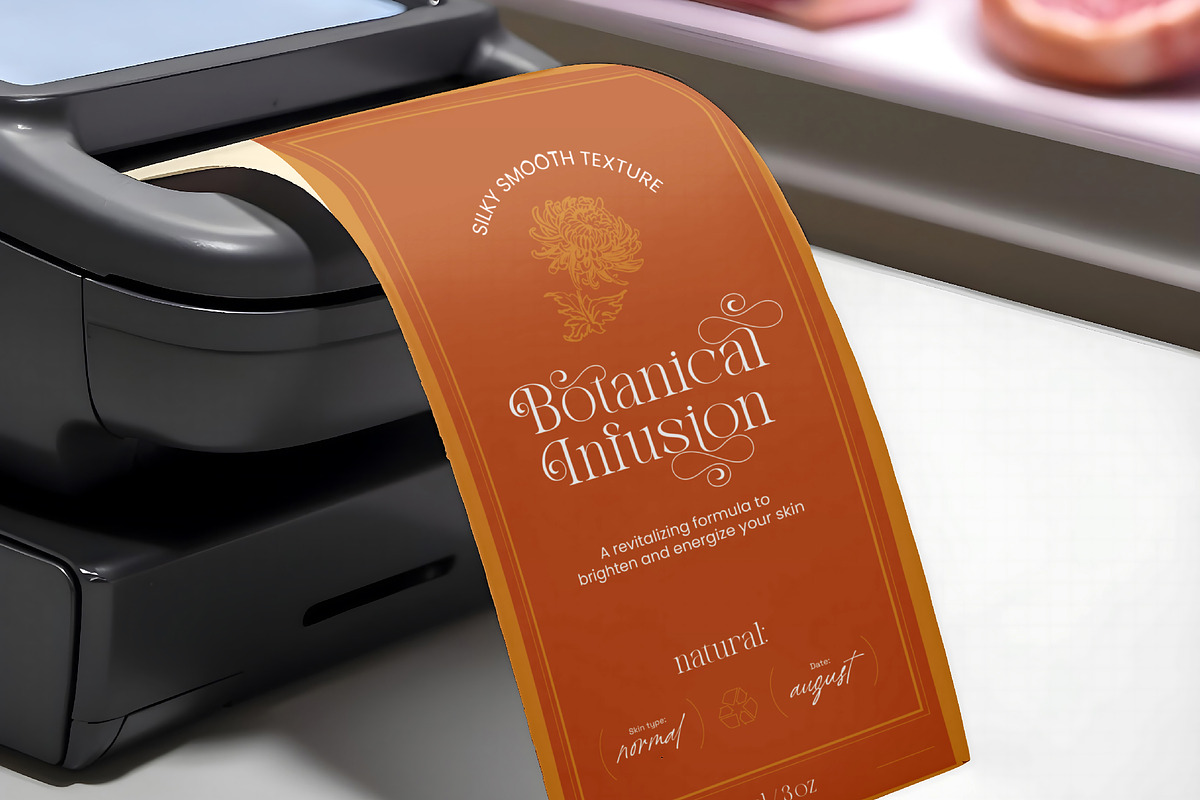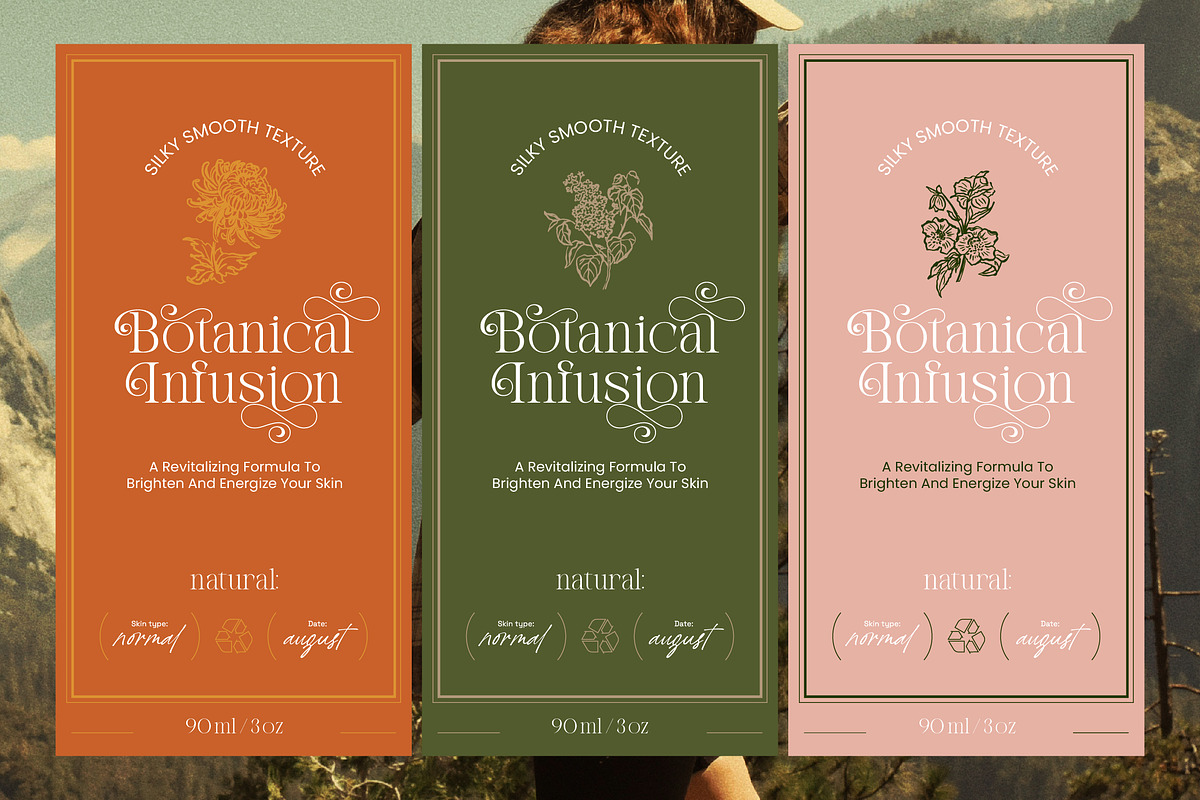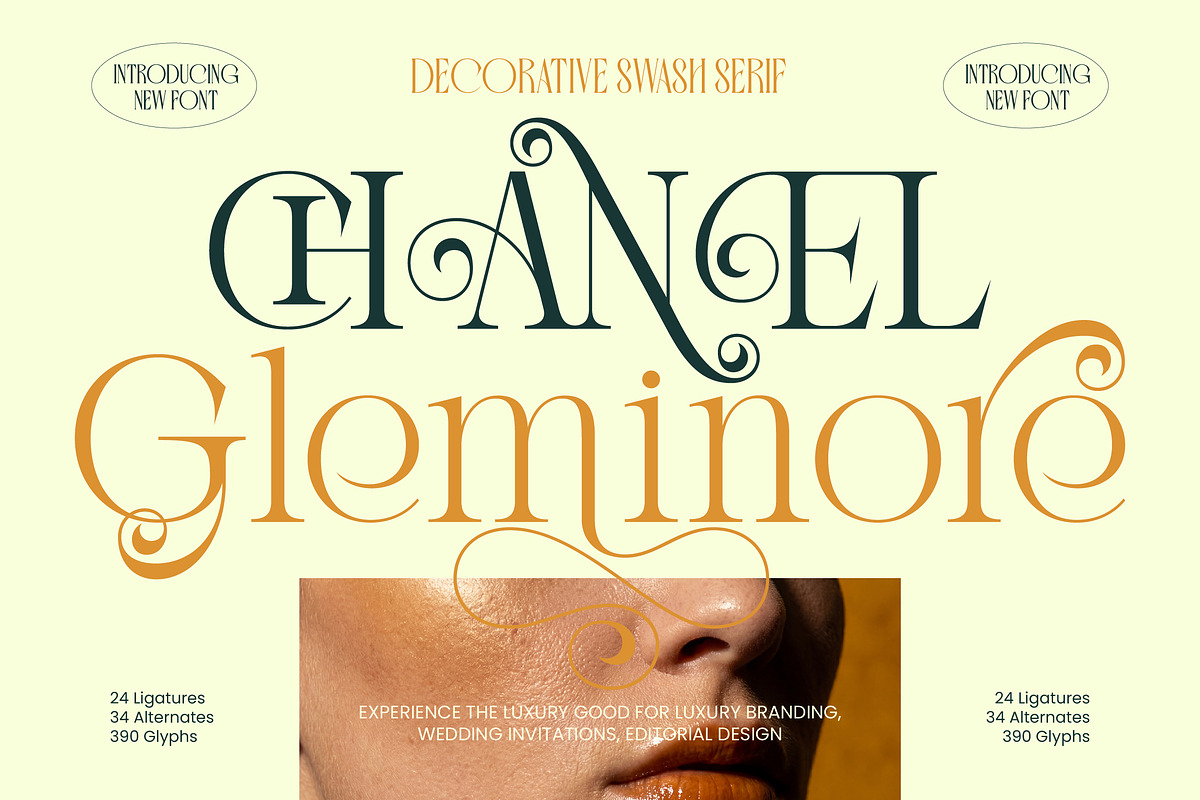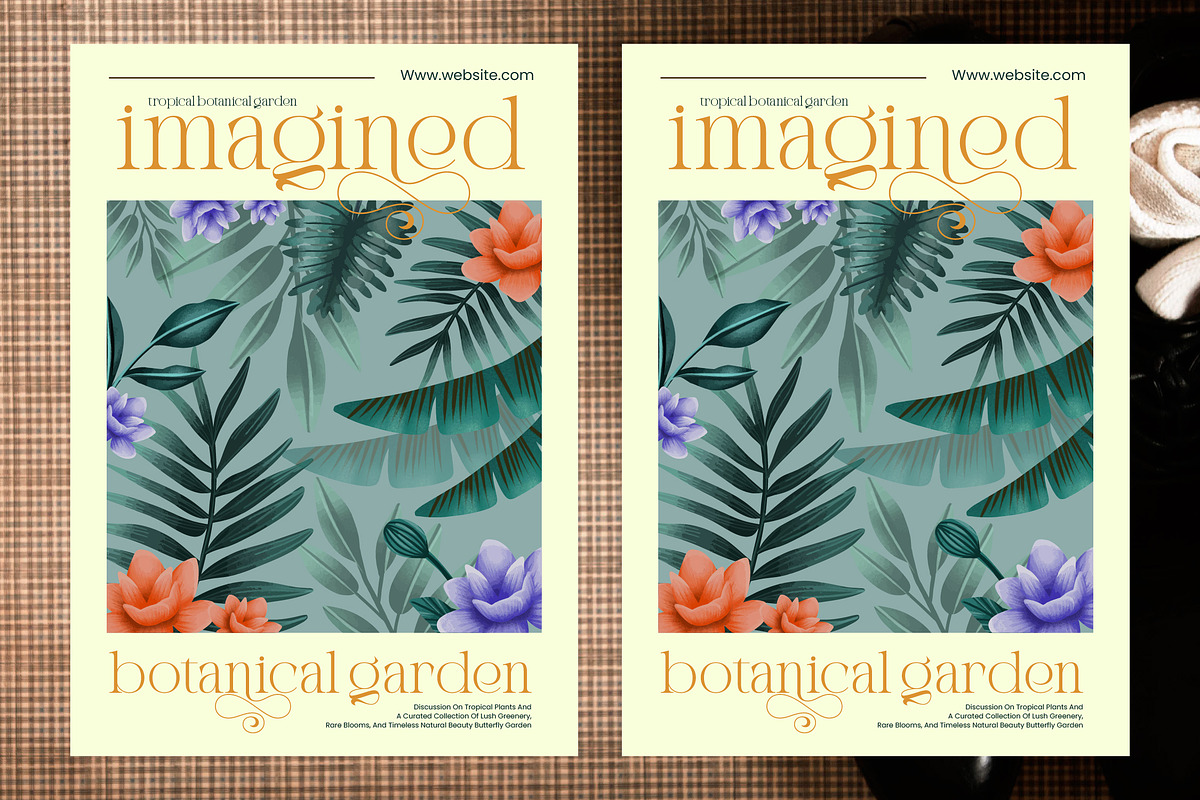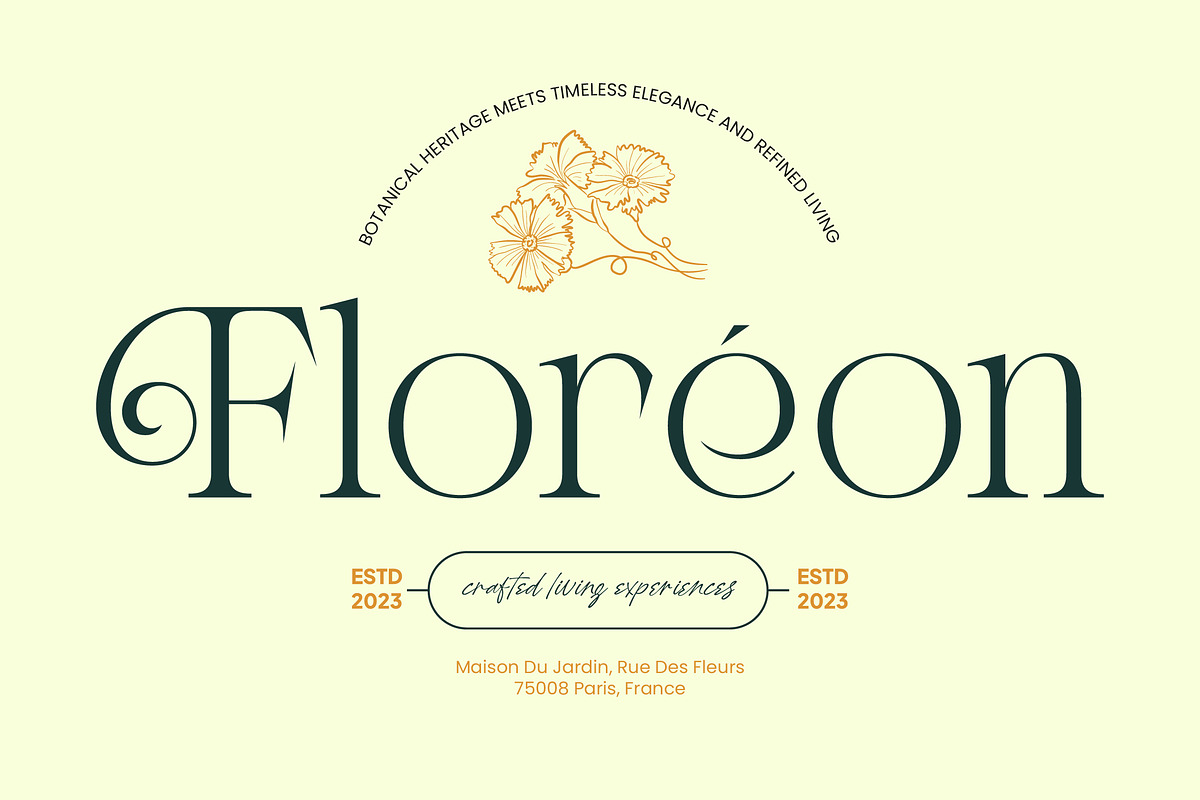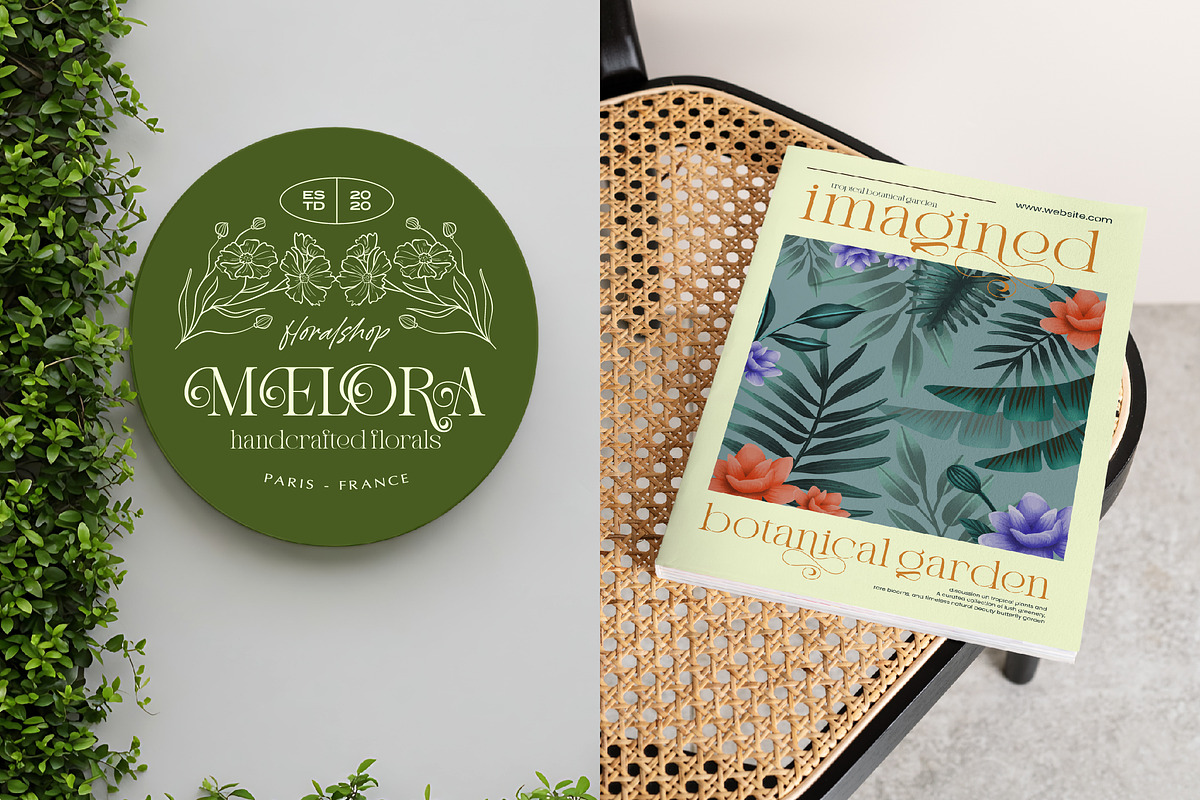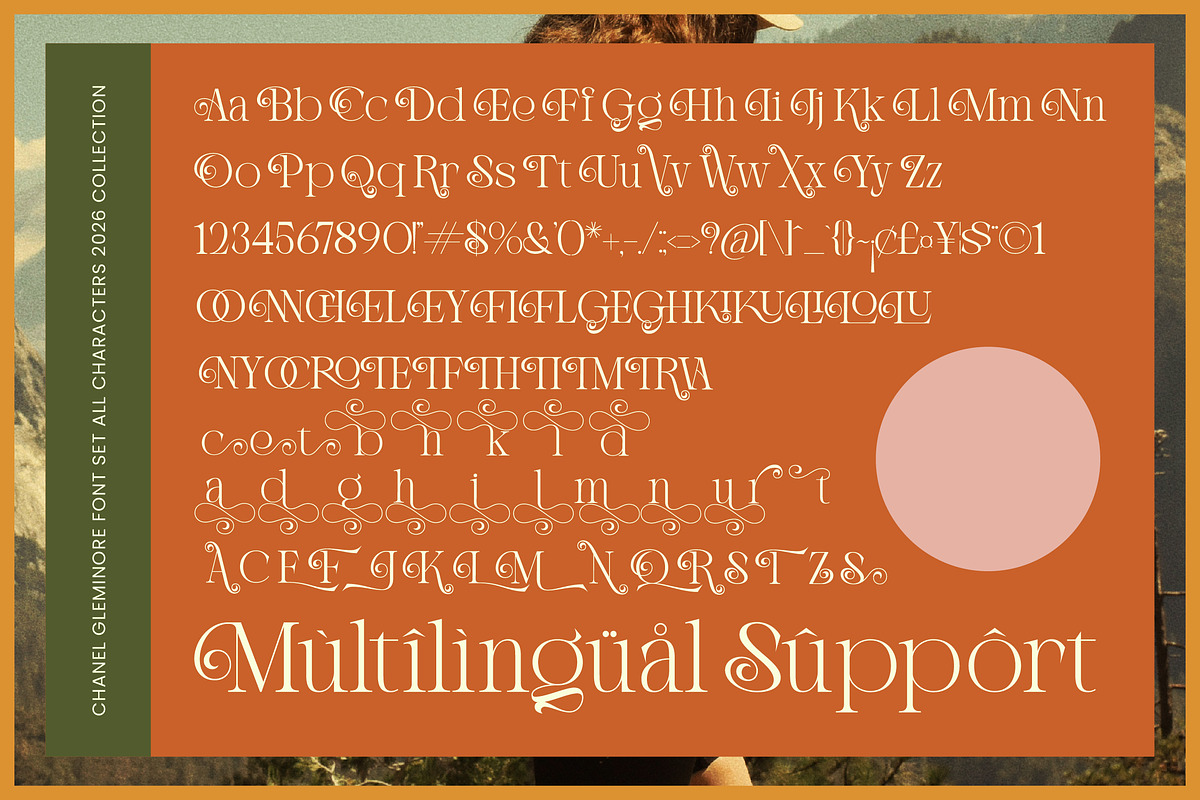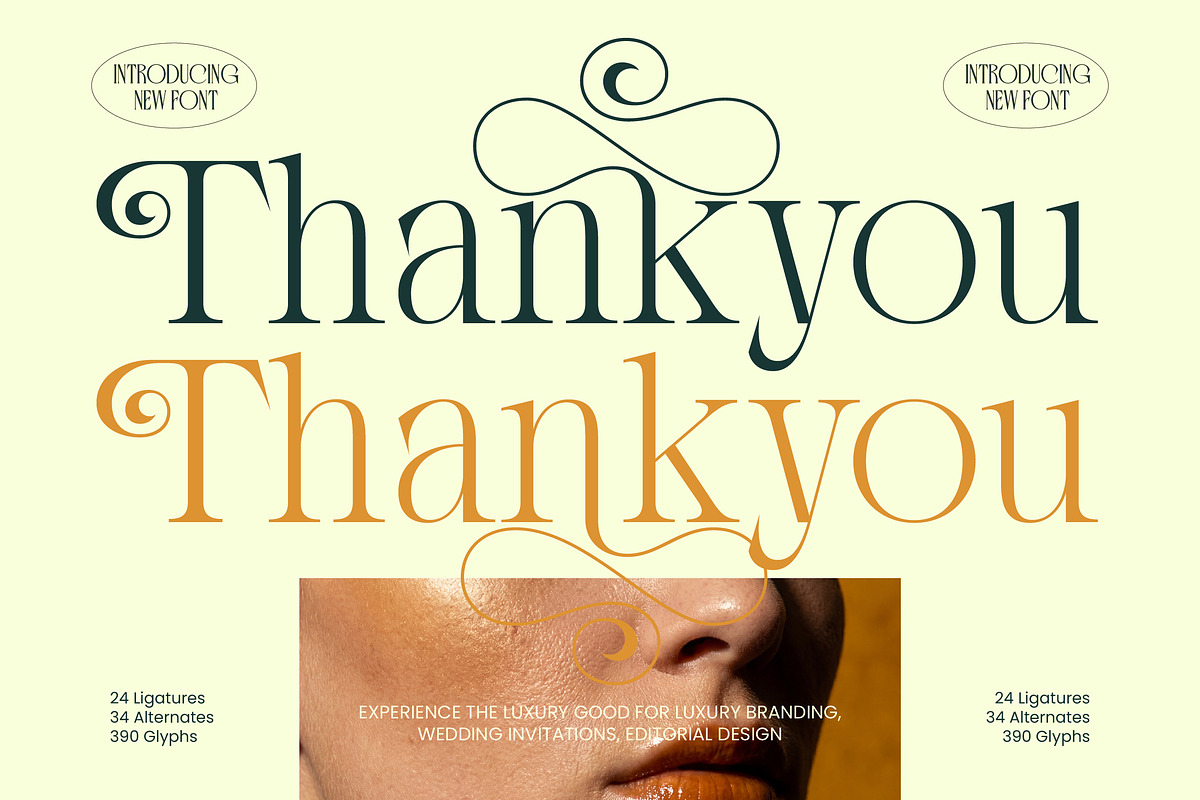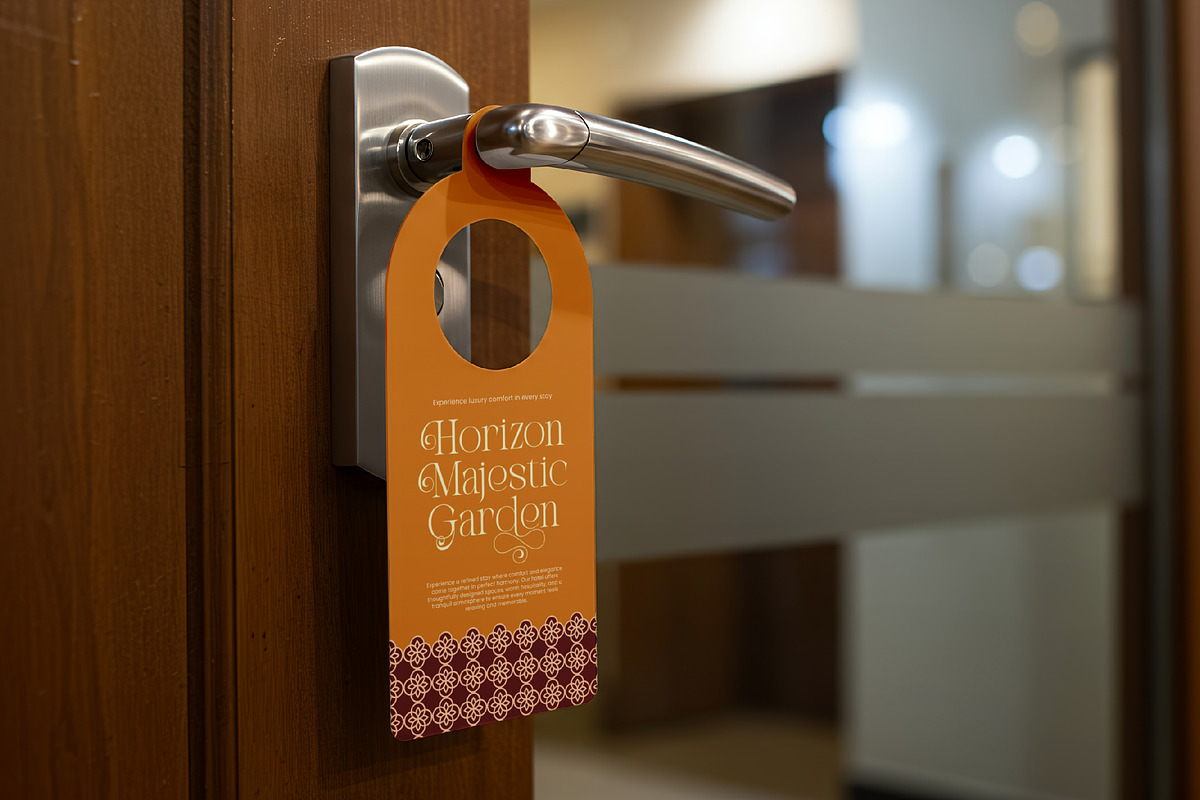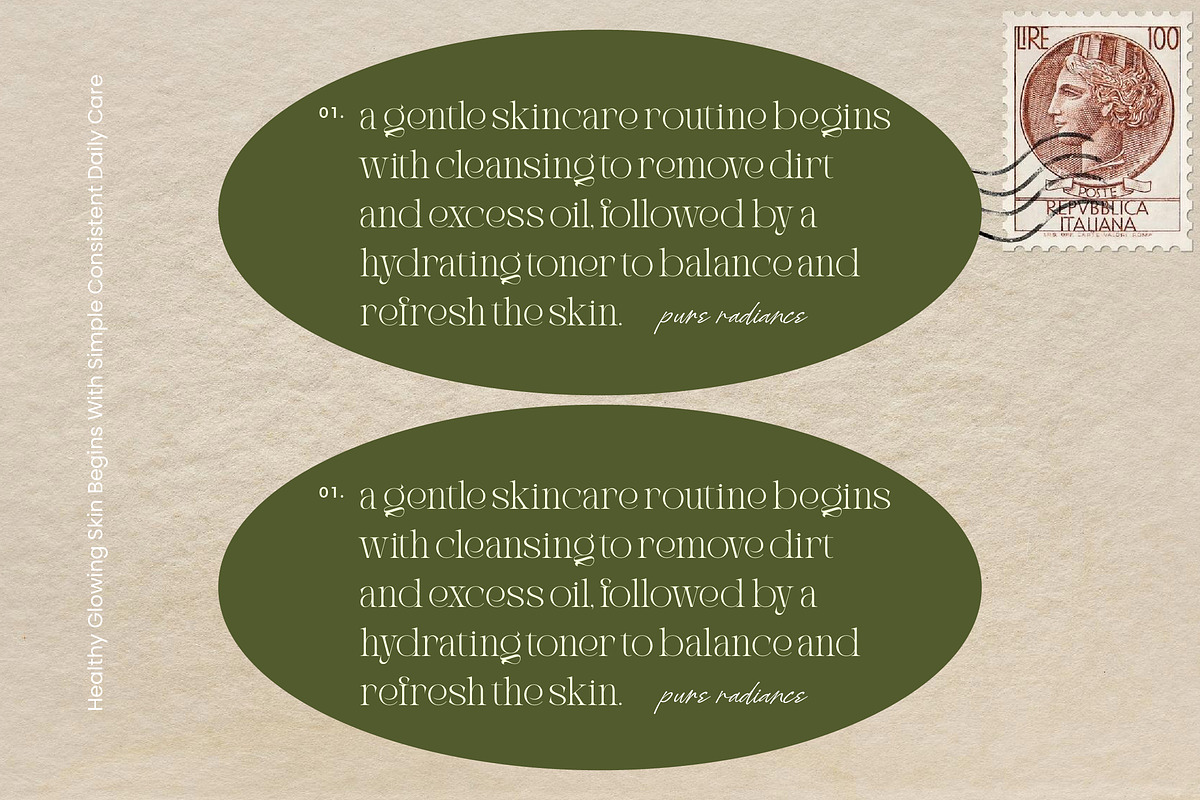
Chanel Gleminore Decorative Swash
Chanel Gleminore – Decorative Swash Serif , Elevate your design aesthetic with the timeless elegance of Chanel Gleminore – Decorative Swash Serif. This typeface embodies sophistication and classic charm, featuring exquisite swashes and dramatic ligatures that breathe life into every character. Its high-contrast strokes and fluid curves create a rhythmic visual flow, making it an essential tool for designers seeking to convey prestige and unparalleled style in a modern landscape.
Global accessibility meets artistic brilliance in this meticulously crafted typeface. With its extensive multilingual support, Chanel Gleminore – Decorative Swash Serif adapts seamlessly across global markets, making it incredibly versatile for international projects. This comprehensive glyph set ensures that your brand message remains consistent and impactful, regardless of the linguistic context, providing a cohesive visual identity for global audiences.
Unlock limitless creative possibilities through a rich collection of OpenType features. Boasting 390 glyphs, 24 ligatures, and 34 alternates, Chanel Gleminore – Decorative Swash Serif offers designers the flexibility to customize layouts with ease. The decorative flourishes and artistic ligatures provide a bespoke feel, transforming standard typography into a work of art that captures attention and demands a second look.
Experience the ultimate solution for high-end visual communication and luxury projects. The ideal application for Chanel Gleminore – Decorative Swash Serif spans across luxury branding, packaging, and editorial design. It is perfect for creating striking headlines, sophisticated wedding invitations, and high-end logo marks. Whether used in a glossy fashion magazine or for premium product labels, this typeface ensures your project radiates exclusivity and refined taste.
Numerals
Punctuations (OpenType Standard)
Accents (Multilingual Characters)
Ligatures and Alternative Style Stylistic Set